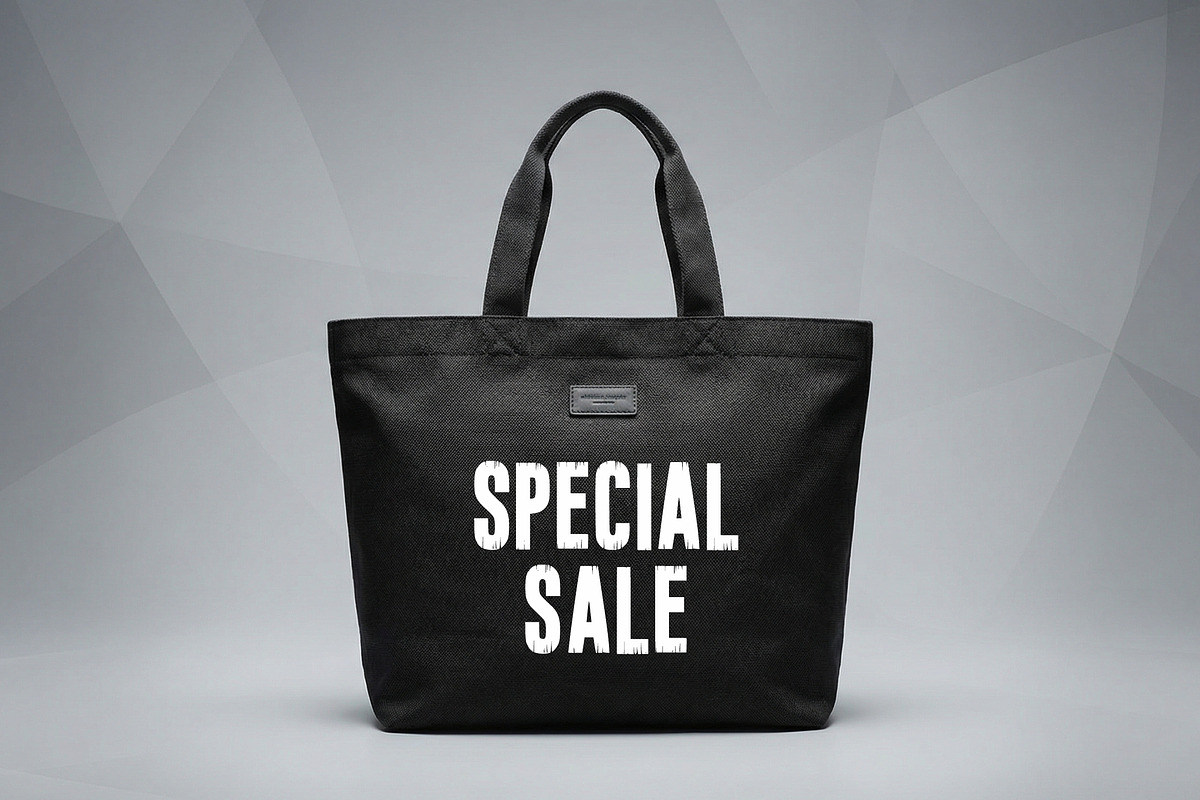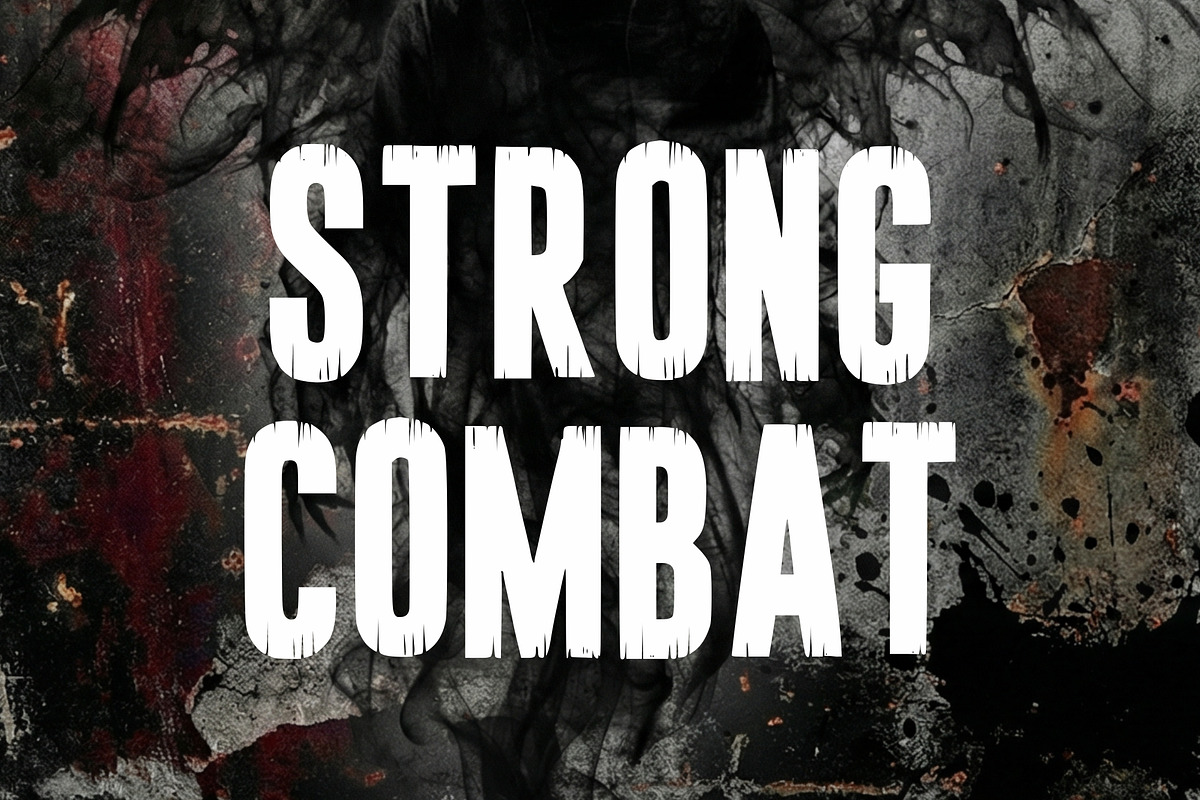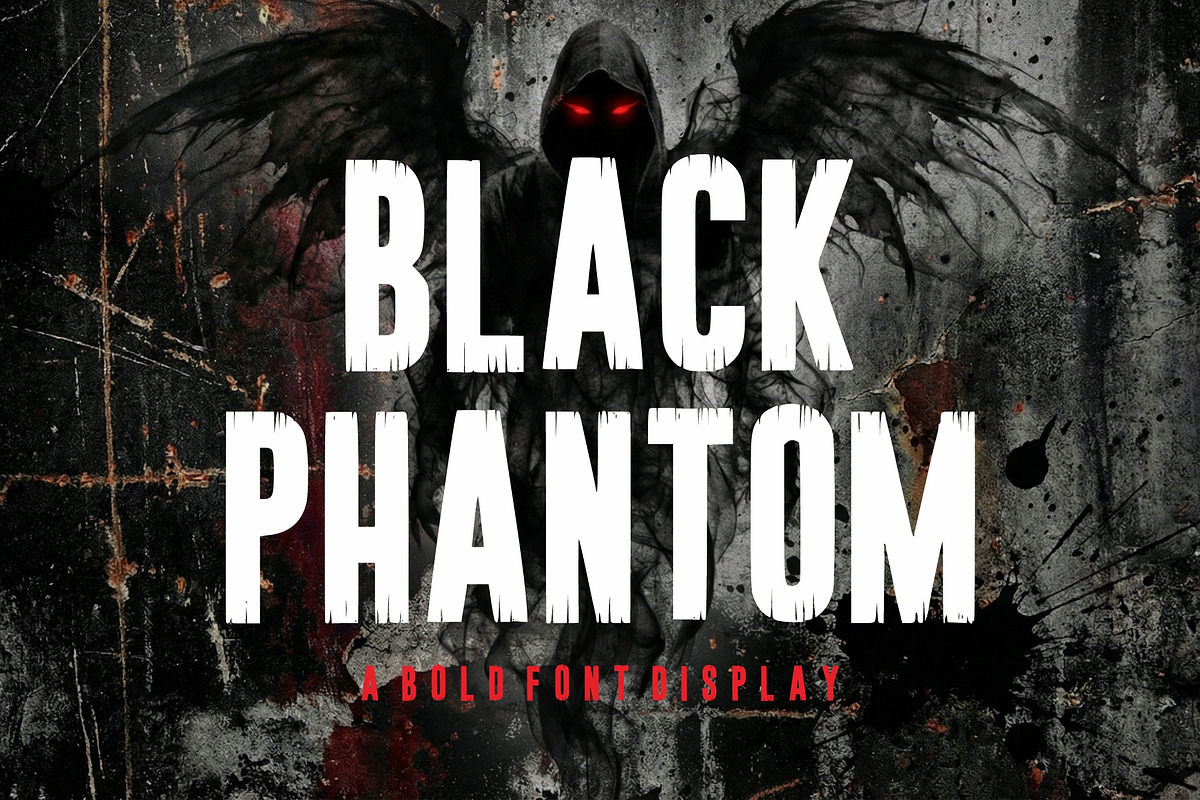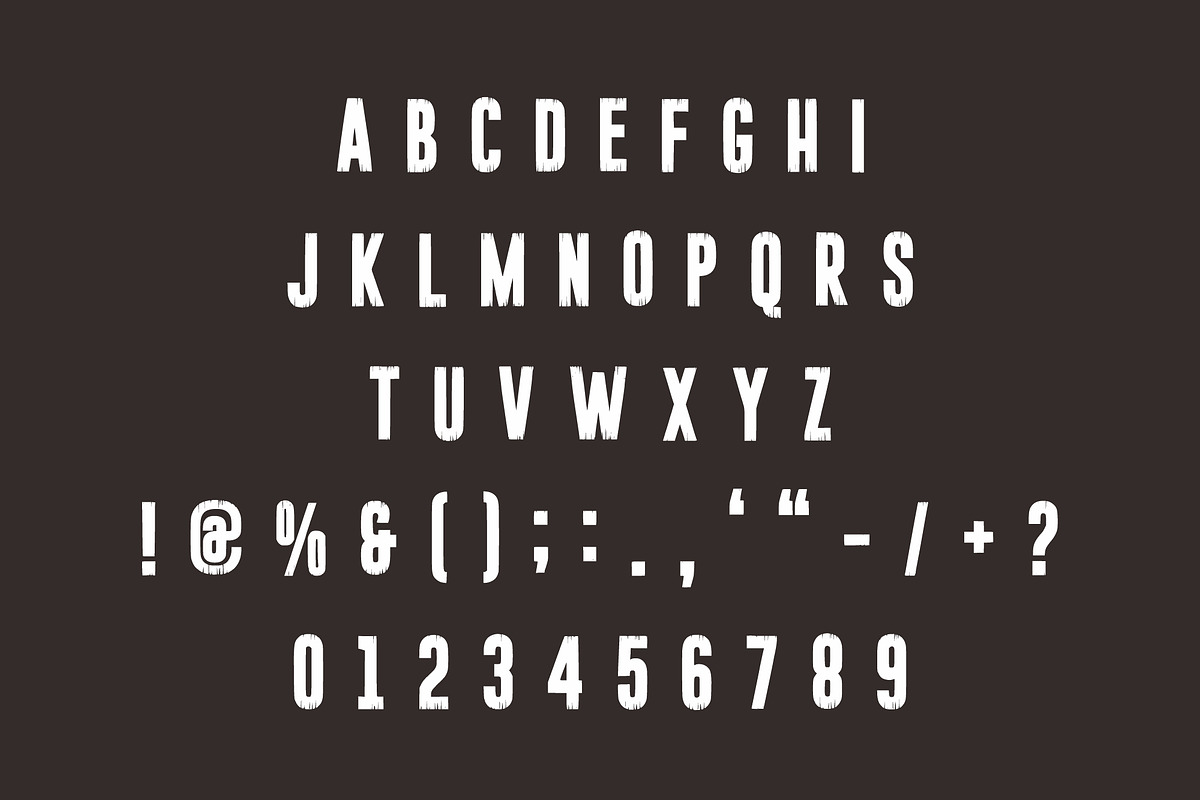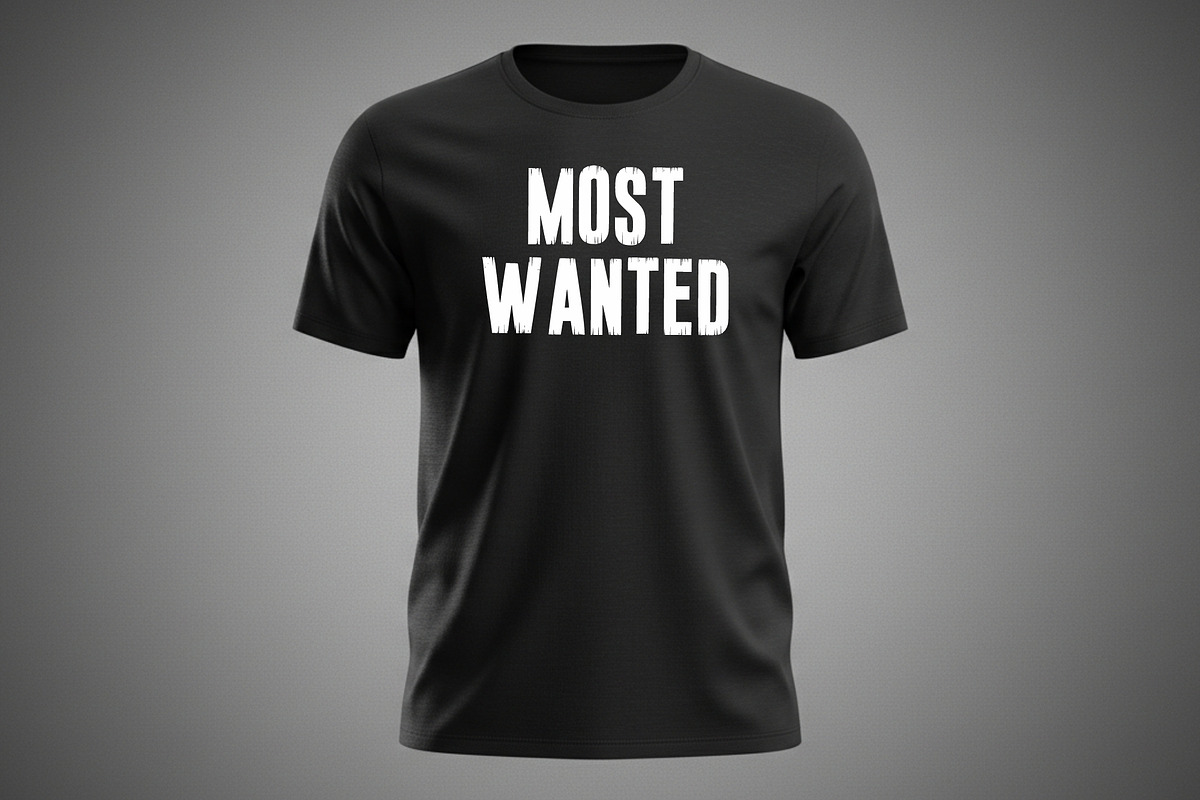
Black Phantom
Black Phantom is a bold and powerful horror display font designed to bring intensity and darkness to your creative projects. Featuring rough, distressed edges and a dramatic brush texture, this font delivers a strong visual impact.
Perfect for Halloween designs, horror movie posters, thriller book covers, gaming branding, metal band artwork, streetwear, and bold merchandise. The strong uppercase style makes it ideal for headlines, logos, and statement typography.
Add a dark, mysterious, and edgy vibe to your designs with Black Phantom.